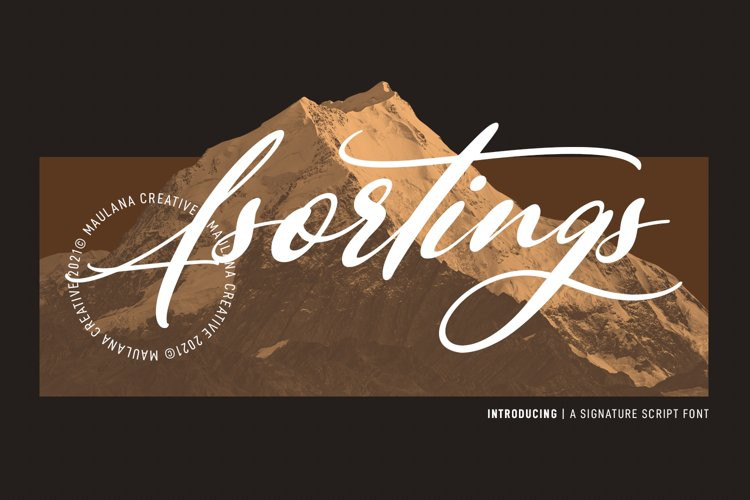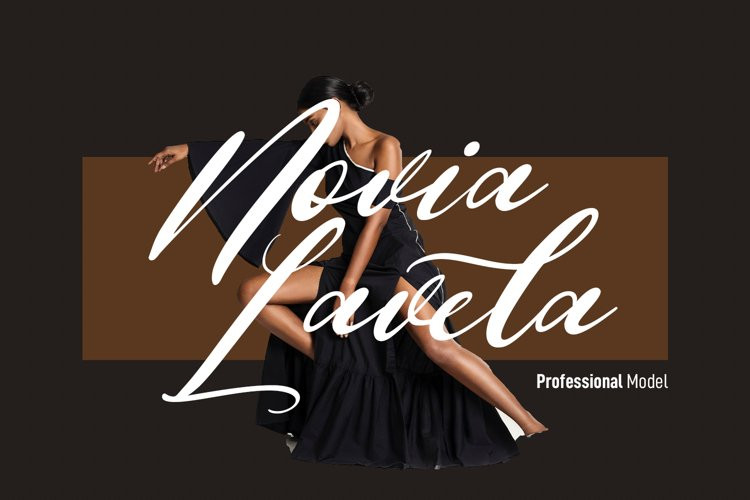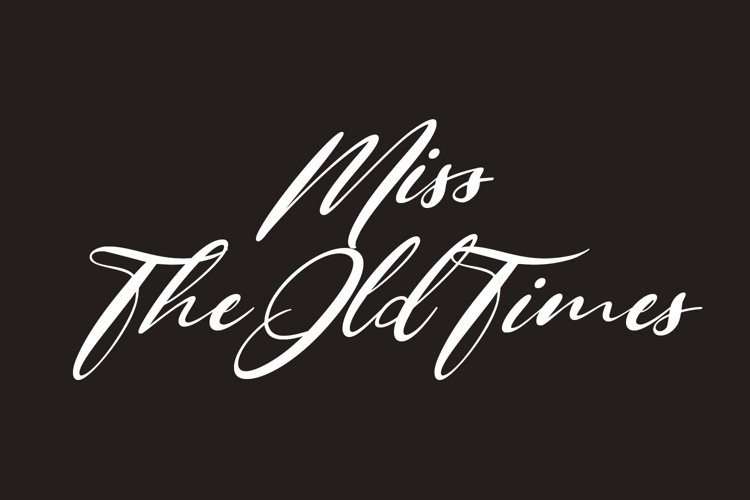
Asortings Font
Asortings is a modern signature script font. With high contrast clean stroke, fun character with some of ligatures. To give you an extra creative work. Asortings font support multilingual more than 100+ language. This font is good for logo design, Social media, Movie Titles, Books Titles, a short text even a long text letter and good for your secondary text font with sans or serif. Make a stunning work with Asortings font.